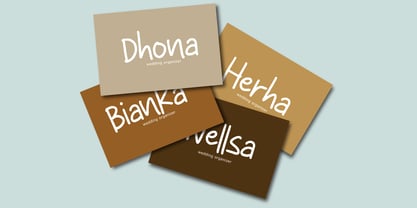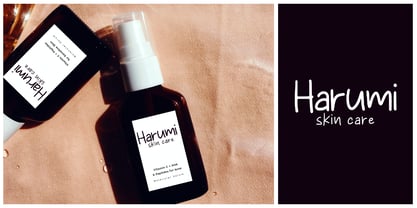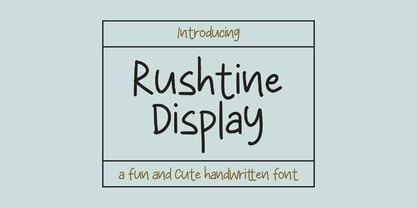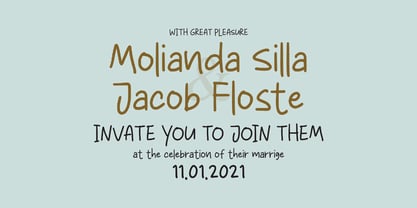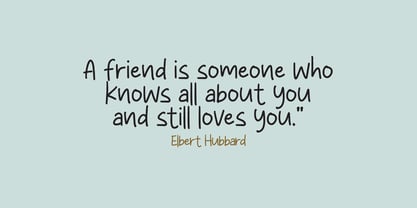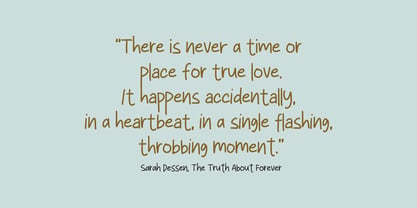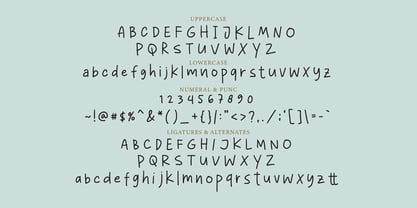
Rushtine Display
by Tebaltipis Studio
The Rushtine Display Font Family was designed by Dzulka Elfira and published by Tebaltipis Studio. Rushtine Display contains 1 styles. More about this family
Rushtine Display font a display typeface awesome character regular. Wonder Sunday font it’s perfect for namecard, poster, logo, magazine, cover, banner, tshirt and headers, or even large-scale artwork.
Designers: Dzulka Elfira
Foundry: Tebaltipis Studio